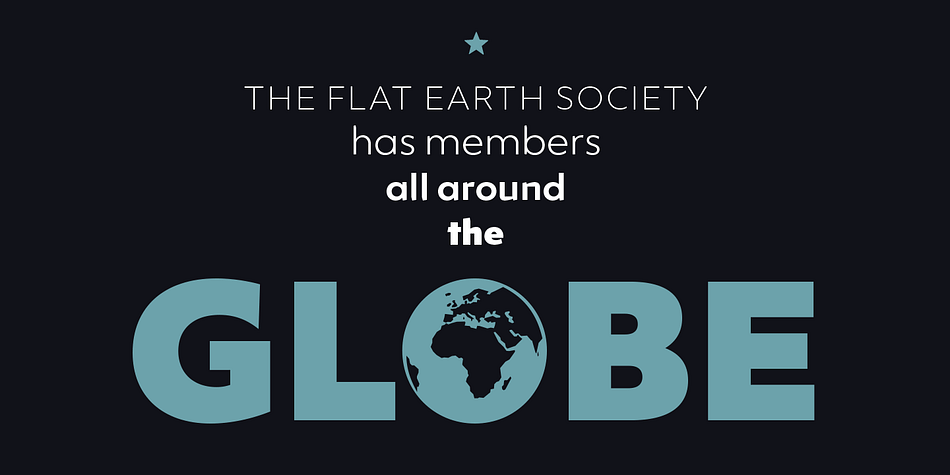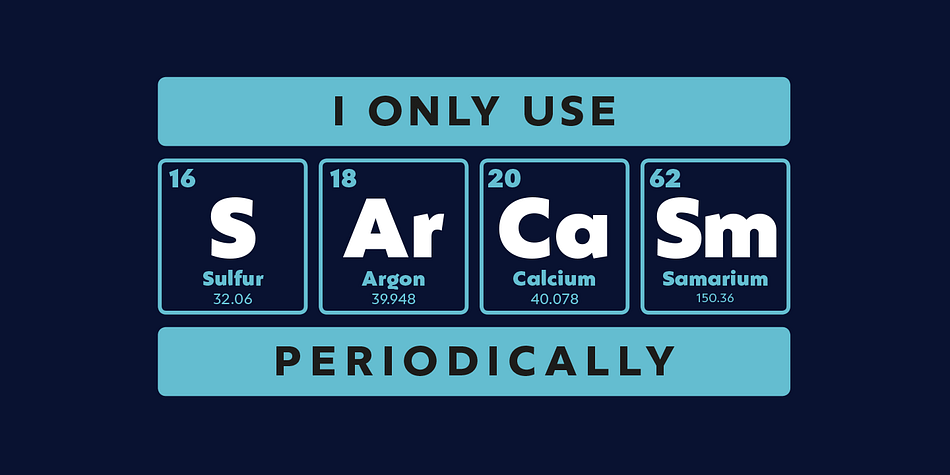
Ingeo
Designed by Juan Blanco, Ingeo is a display sans font family. This typeface has nine styles and was published by Blancoletters.
Between the most rigid geometric letterforms and the most expressive calligraphy works there are, undoubtedly, countless combinatory possibilities. Ingeo is just one of them. Located very close to a geometric approach it shows, however, a clear willingness to accommodate in its structure the calligraphic traits of our alphabet. In Ingeo geometry grows from the inside, meaning that all its counters are based on geometric shapes. Around them, contours are later defined. The solid mass resulting from that interaction is modulated in specific areas in a way that evokes the way a writing hand finishes a letter and starts the following one. Ingeo seeks to accommodate calligraphic features in its geometric structure without any complexes, in the same way a computer engineer writes a song or a poet admires the orbits of planets and satellites. In this vast and unmapped realm between seemingly opposing concepts is where Ingeo finds its playground. There, that interaction is pushed to its limits and the resulting letterforms are later confronted with typographical conventions to assess whether they survive.
Ingeo comes with 695 glyphs in its character set with support for more than 270 languages. Among these glyphs you can find 5 stylistic sets, 19 useful science-related icons as well as 7 different designs for ampersands.